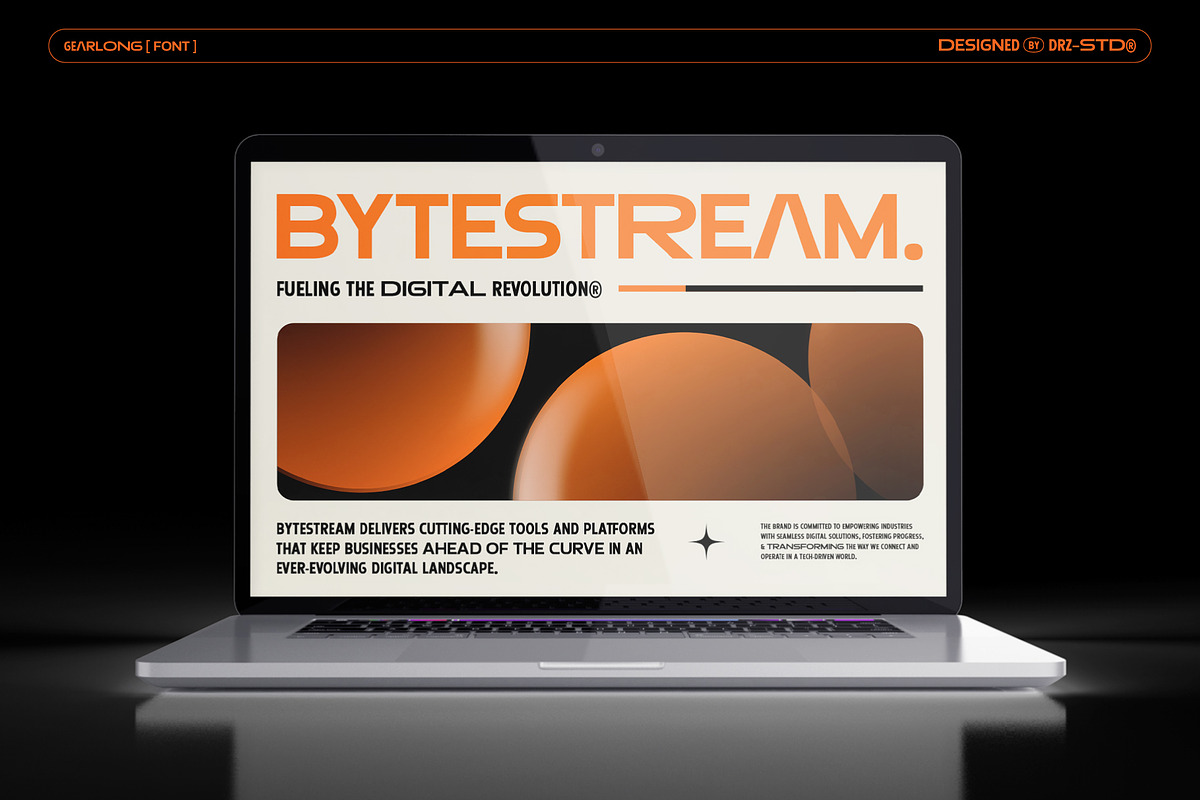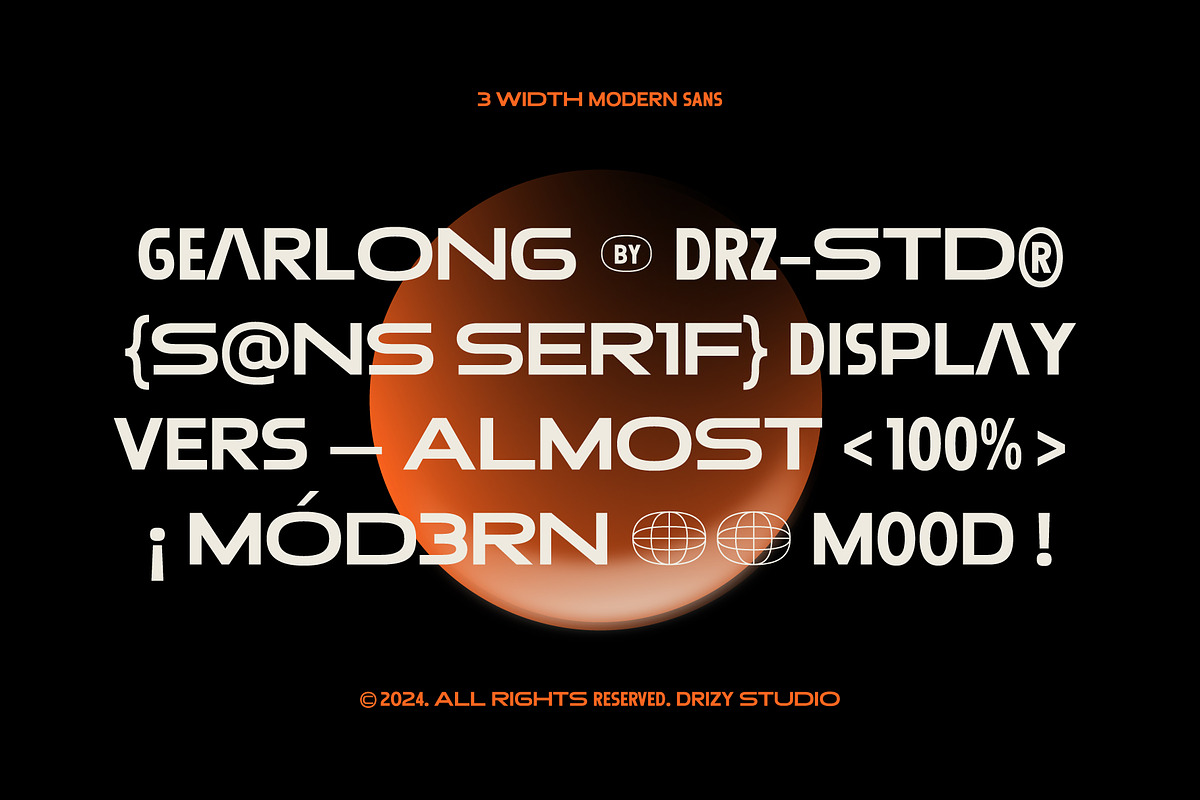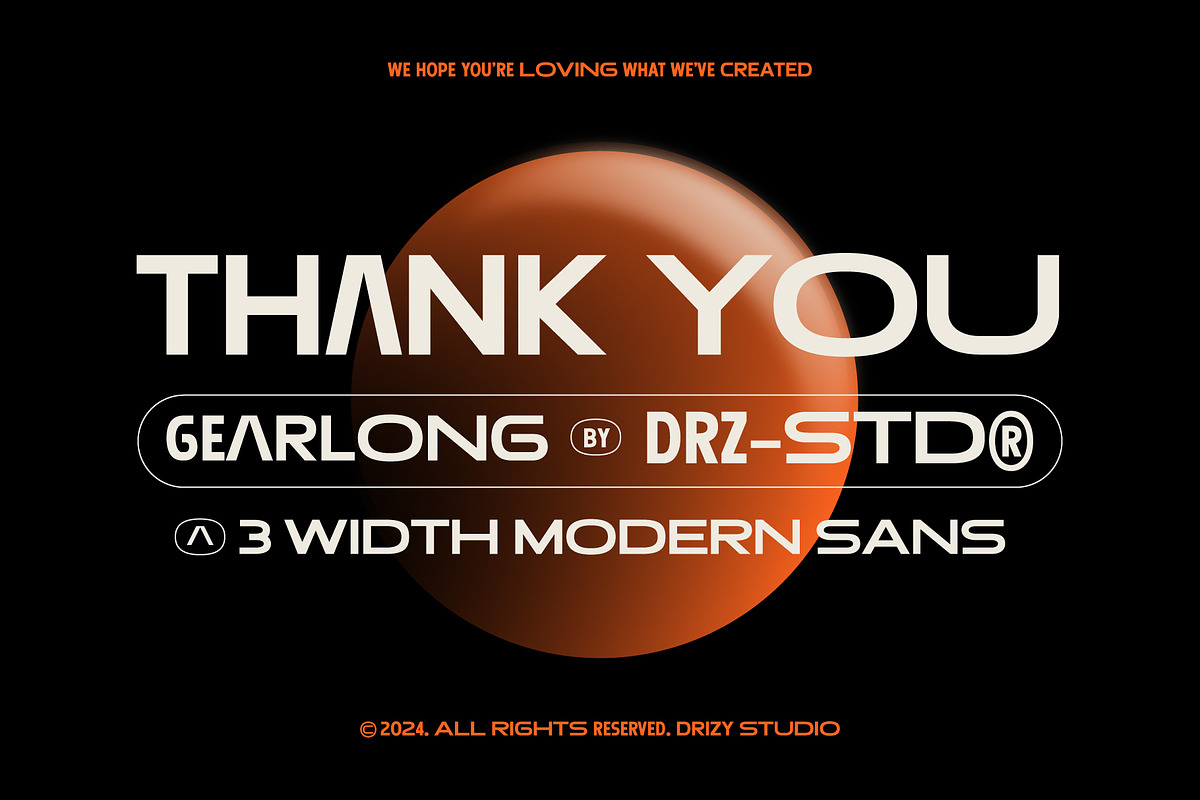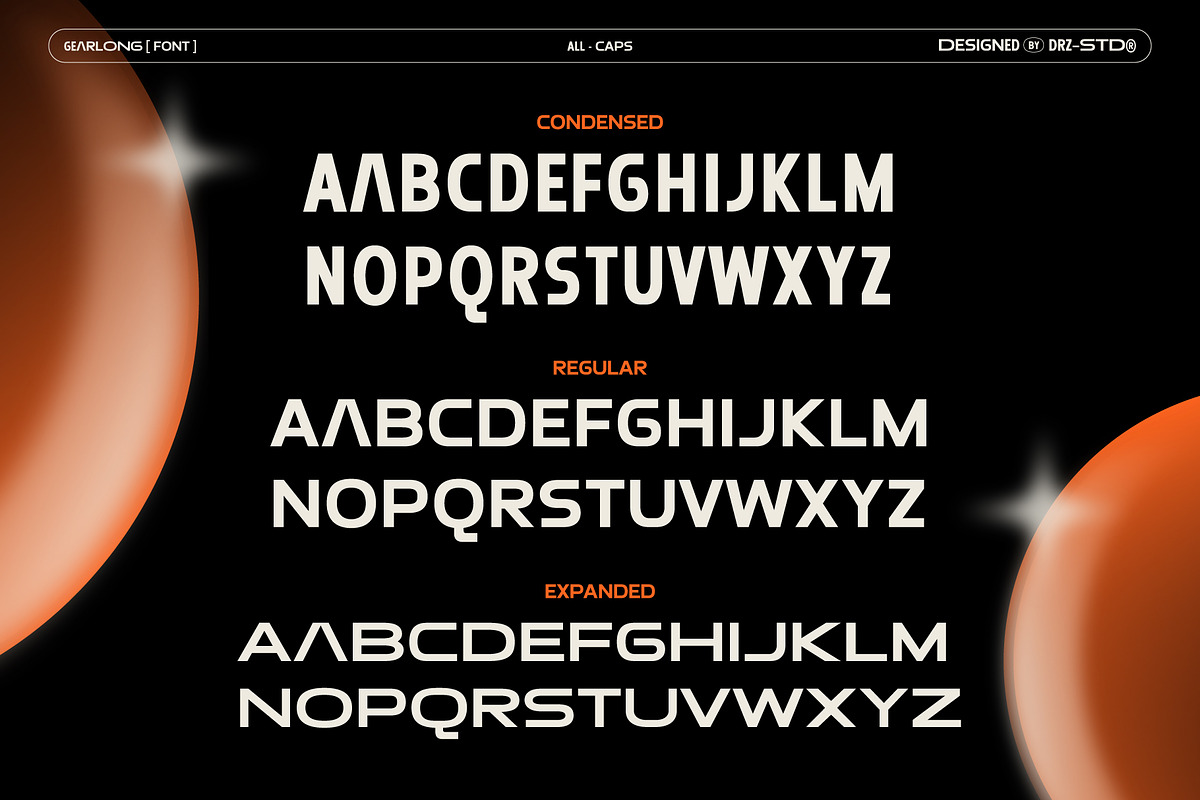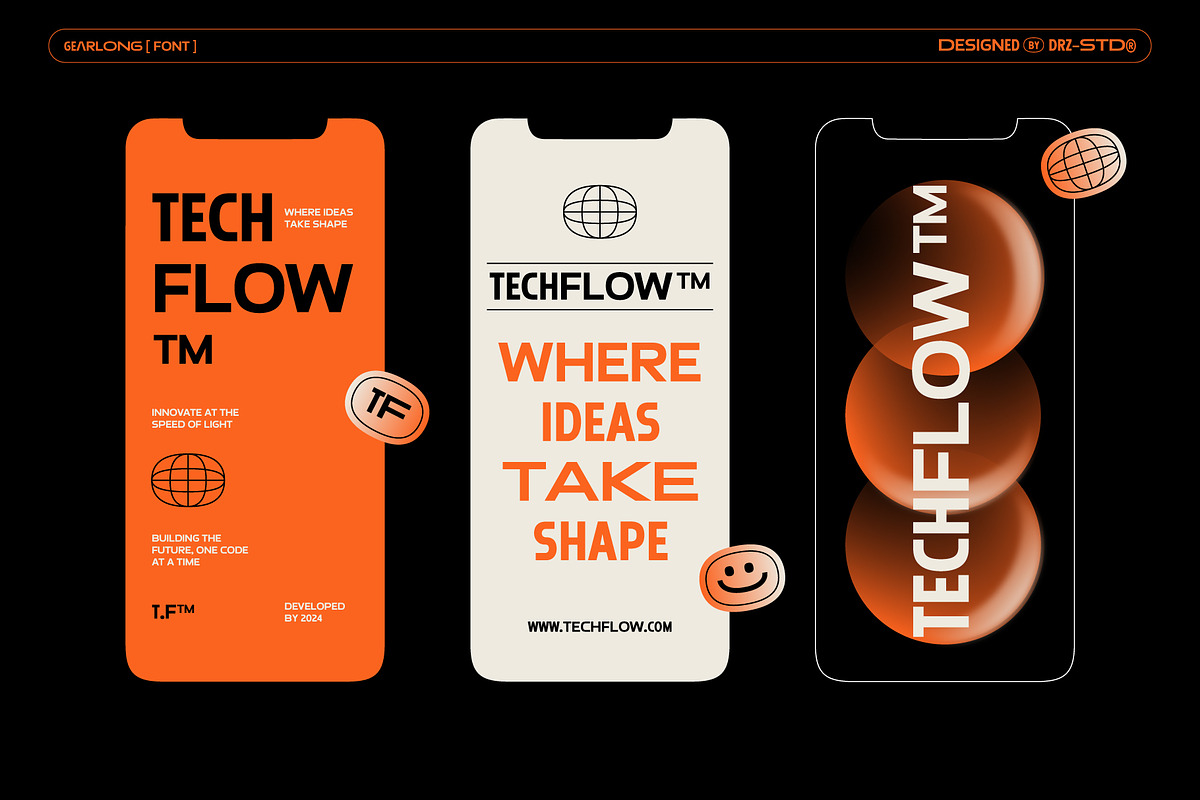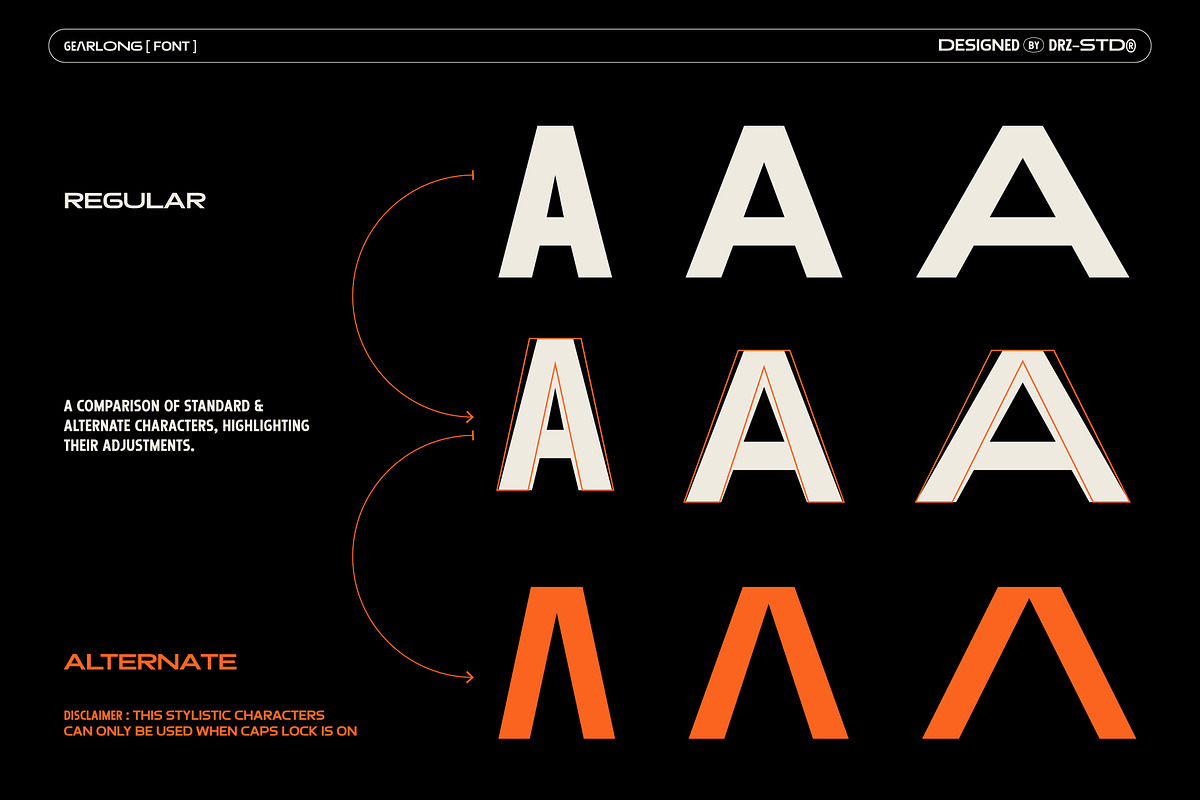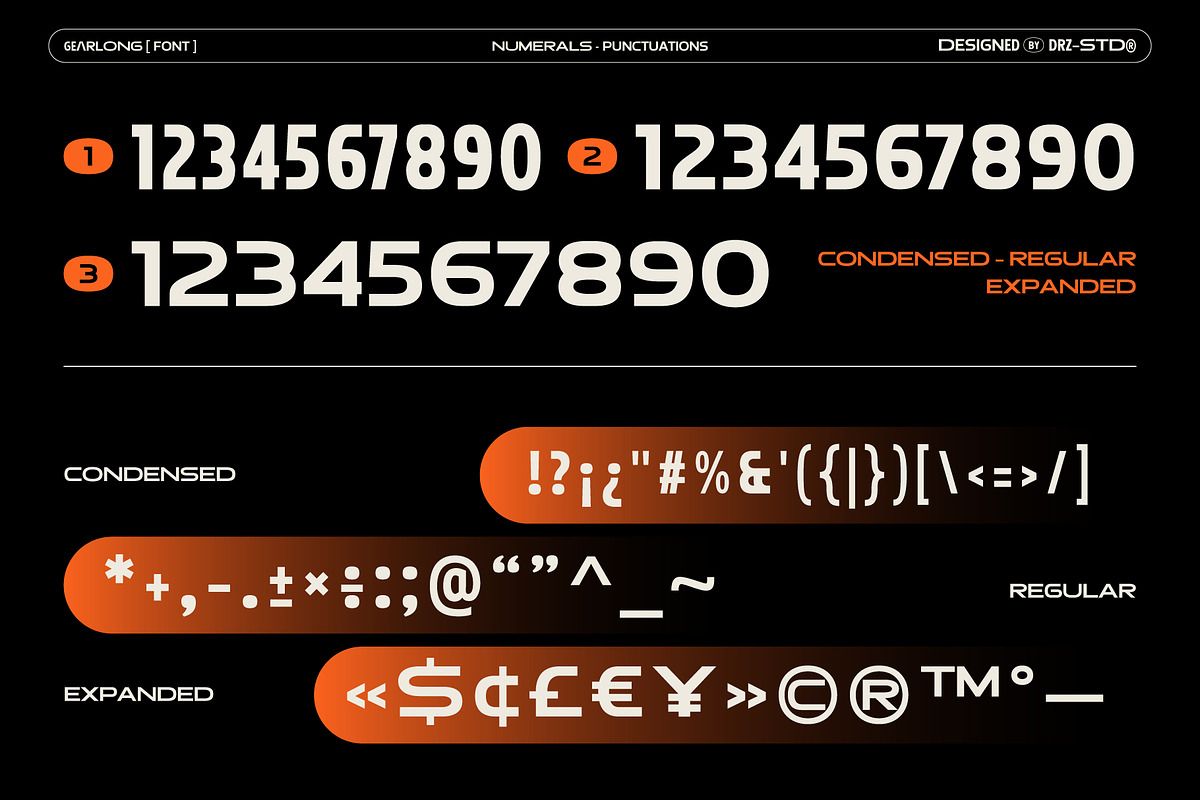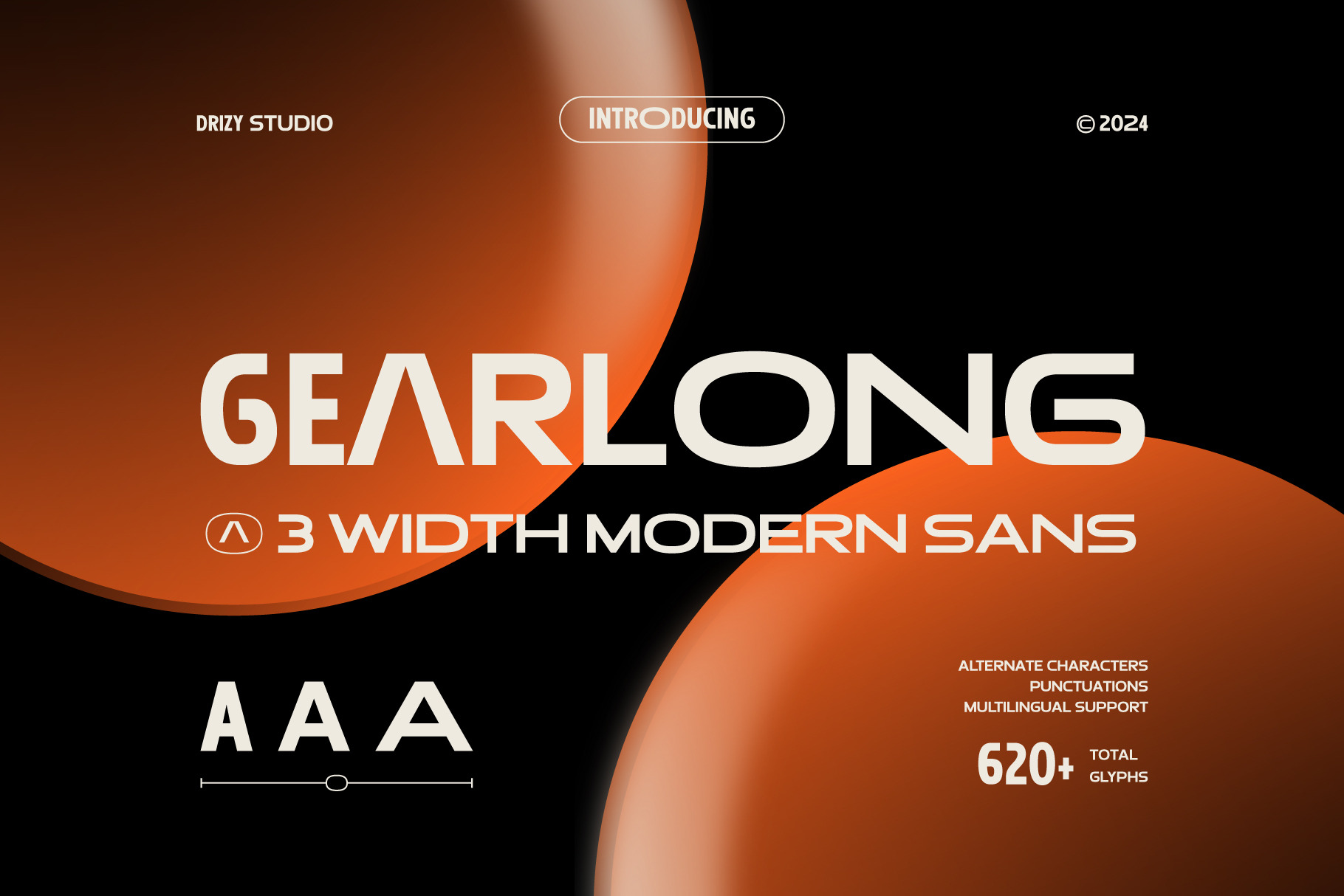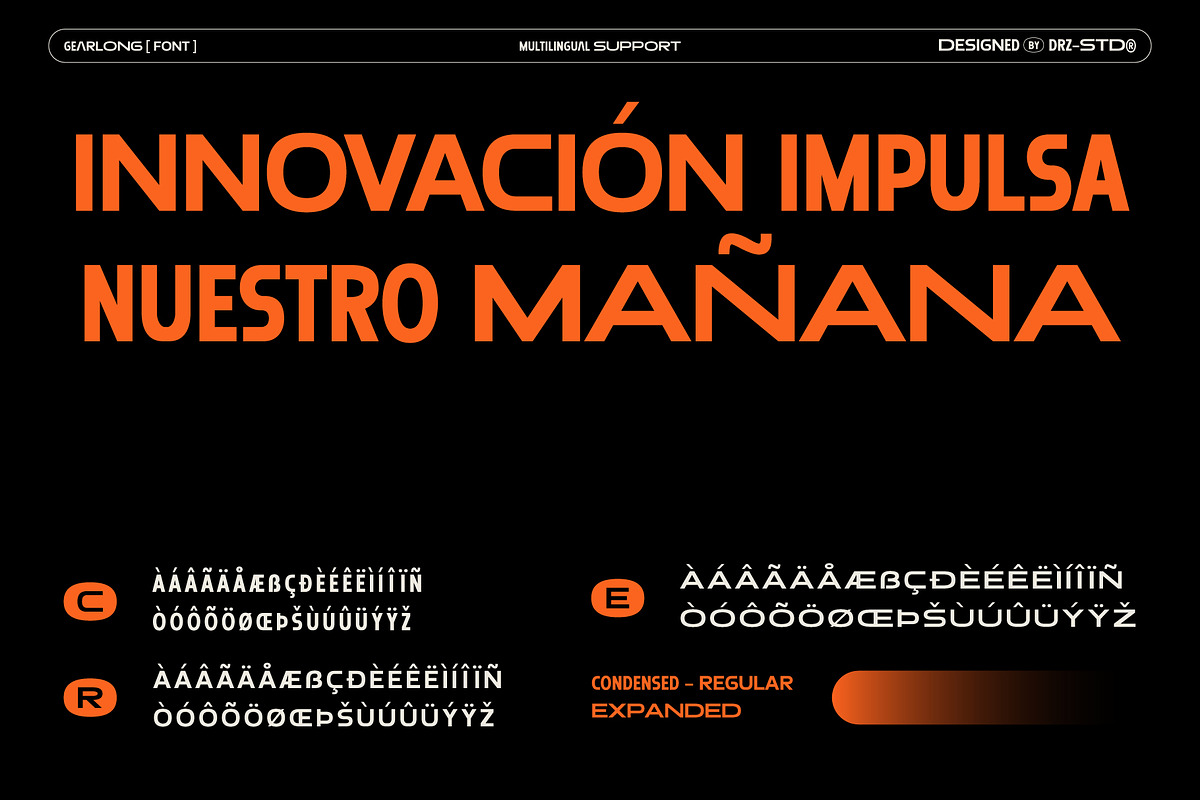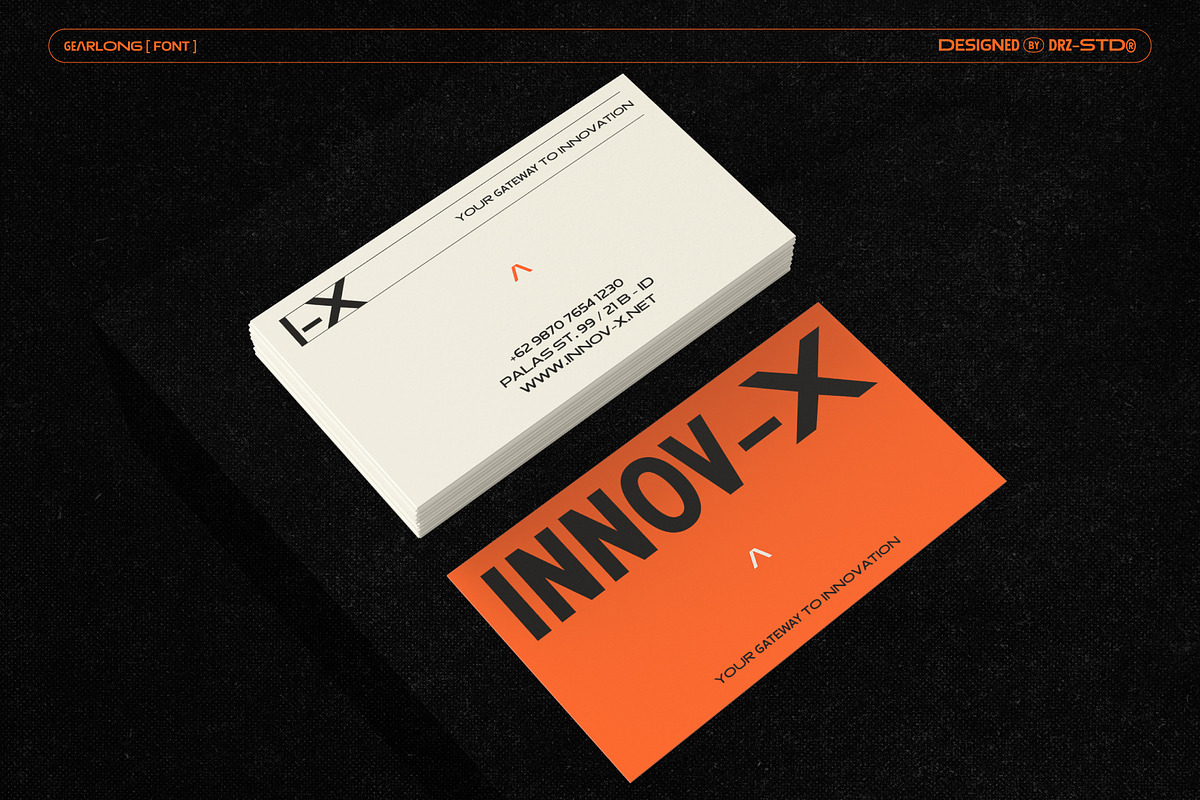
Gearlong – 3 Width Modern Sans Font
Gearlong is a versatile and contemporary font designed with Clean Modern lines and a sleek, minimalistic aesthetic. This typeface offers three distinct widths, providing flexibility for a variety of design needs—from bold headlines to delicate body text. Perfectly suited for UI/UX projects, visual identities, and modern branding, Gearlong exudes sophistication and clarity. It’s geometric structure and balanced proportions make it an ideal choice for designers seeking a professional yet approachable look. Whether you’re crafting a logo, building a website, or designing a mobile app, Gearlong ensures your message is delivered with style and precision.
Gearlong features:
- Character Set (All Caps)
- Punctuation & Numbers
- Alternates “A”